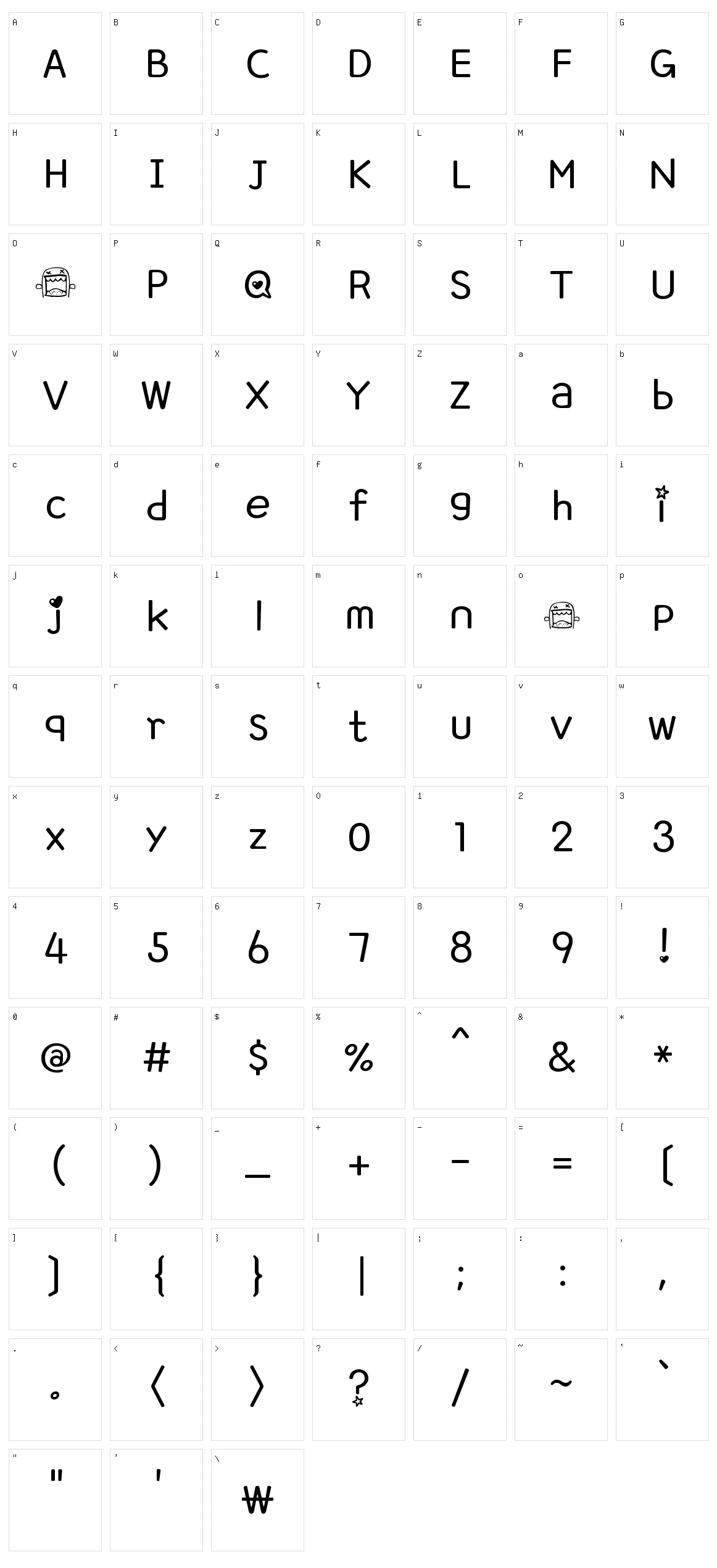
The free font Domo Laughing is carefully designed by Bridget Pavs, showcasing a thoughtful balance of creativity and usability and falls under the Cartoon font style. When you download the ZIP file, it contains only 26.08 KB of font files, making it lightweight and quick to download. Please review the license details below to understand permitted usage and distribution rights. If license information is not available, we recommend using this font for personal projects only or contacting the author directly for commercial usage permissions.